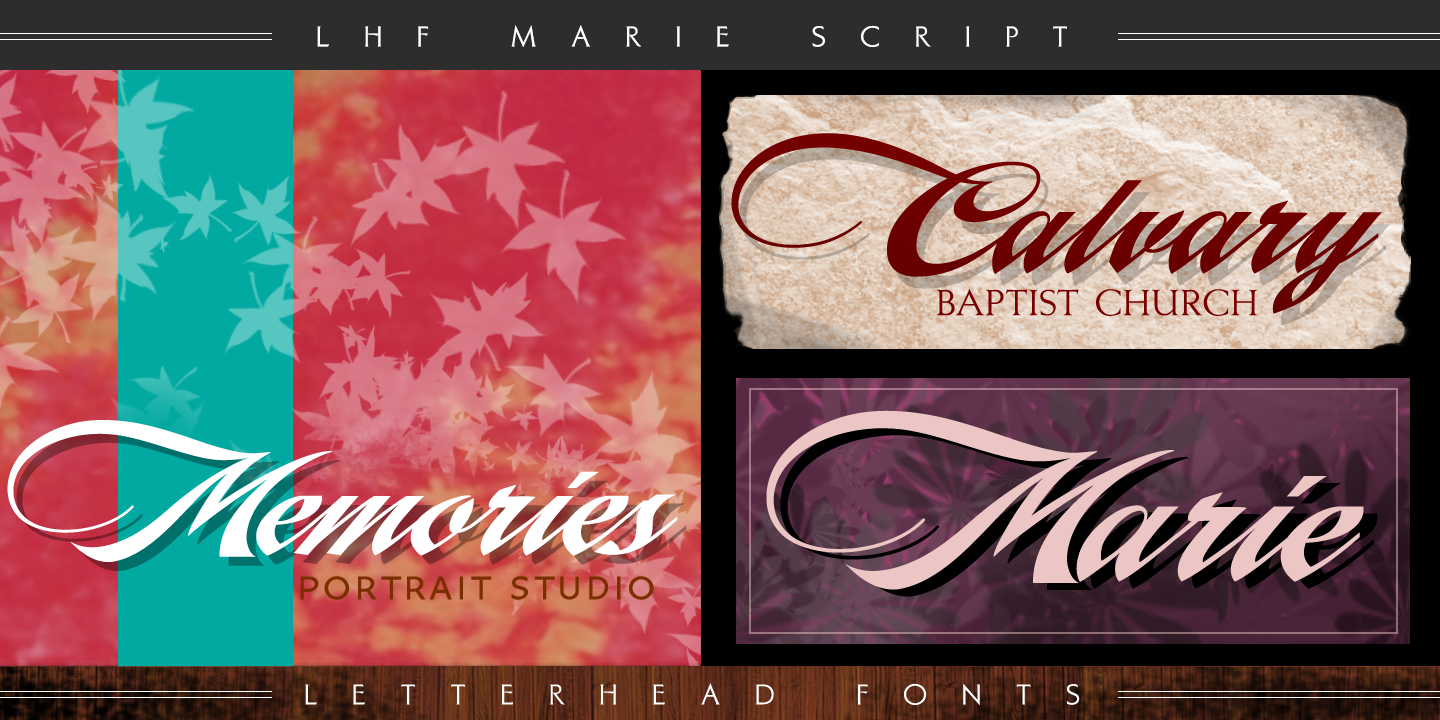
LHF Marie Script Font is perfect for wedding invitations, greeting cards, romantic branding, beauty salon logos, boutique signage, social media graphics, handwritten quotes, feminine product packaging, luxury brand identity, and elegant stationery design. Its flowing script style makes it ideal for projects requiring a personal, handcrafted touch.
What makes LHF Marie Script Font exciting is its authentic hand-lettered appearance that captures the charm of vintage calligraphy with modern refinement. The font features graceful flourishes, natural stroke variations, and elegant connecting letters that create seamless, flowing text. Its romantic character brings warmth and personality to any design, making readers feel a personal connection. The carefully designed letterforms maintain perfect readability while delivering the sophisticated elegance of traditional script writing.
LHF Marie Script Font comes in multiple variations including Standard, Ornate, Swash, and Decorative styles. Each family member offers unique flourishes and alternate characters, providing designers with extensive customization options. The complete font family includes special ligatures, stylistic alternates, and ornamental elements that enhance the authentic handwritten feel.
Whether you're creating wedding materials, luxury branding, or feminine marketing campaigns, LHF Marie Script Font Free Download delivers the sophisticated script elegance that captivates audiences. The font's timeless appeal works beautifully for both traditional and contemporary design applications. Its extensive character set includes special symbols and decorative elements, making it perfect for creating memorable brand experiences and emotional connections with your audience.